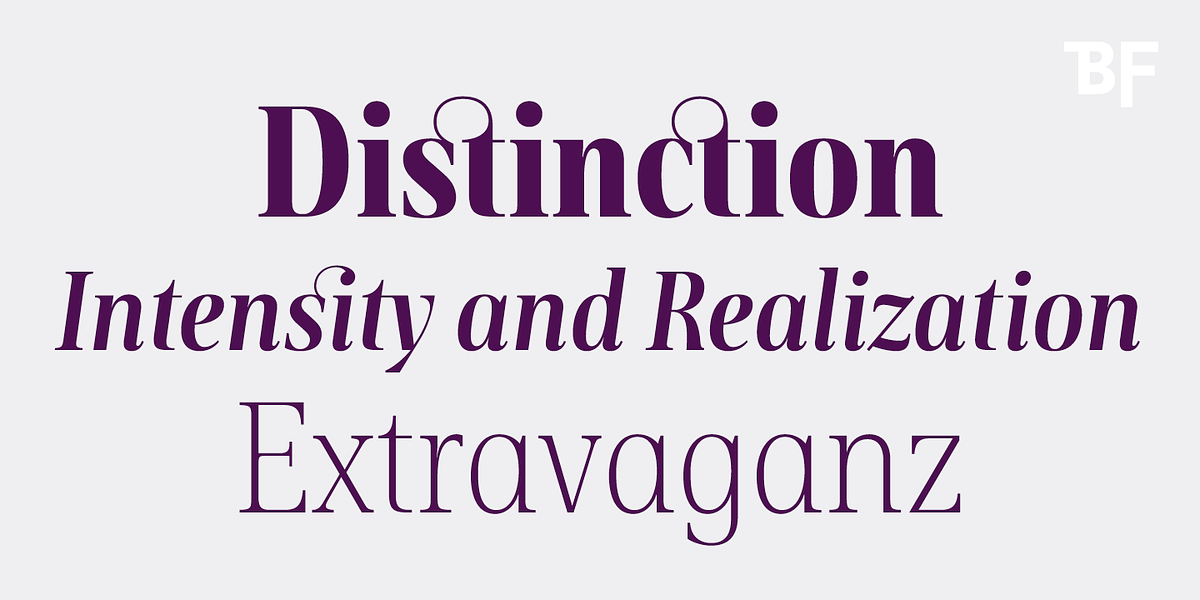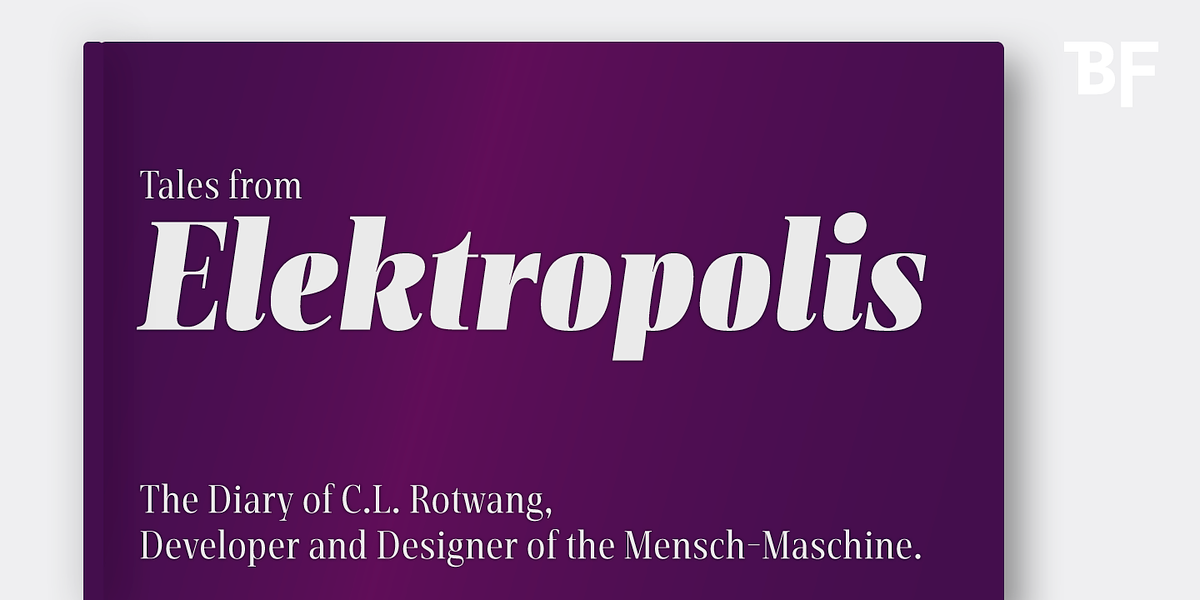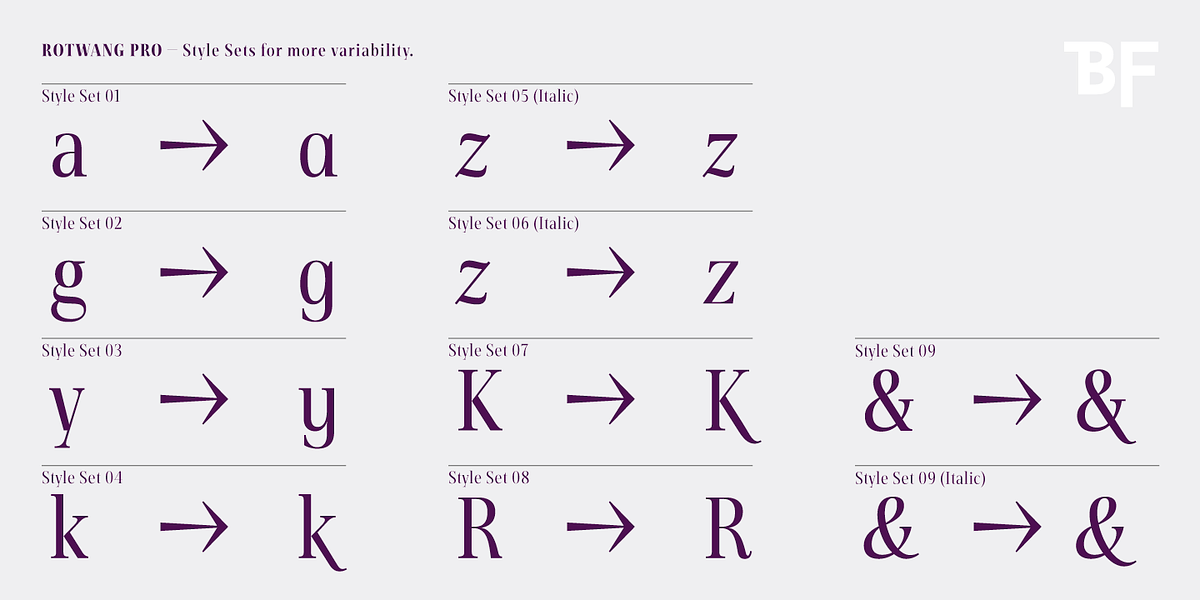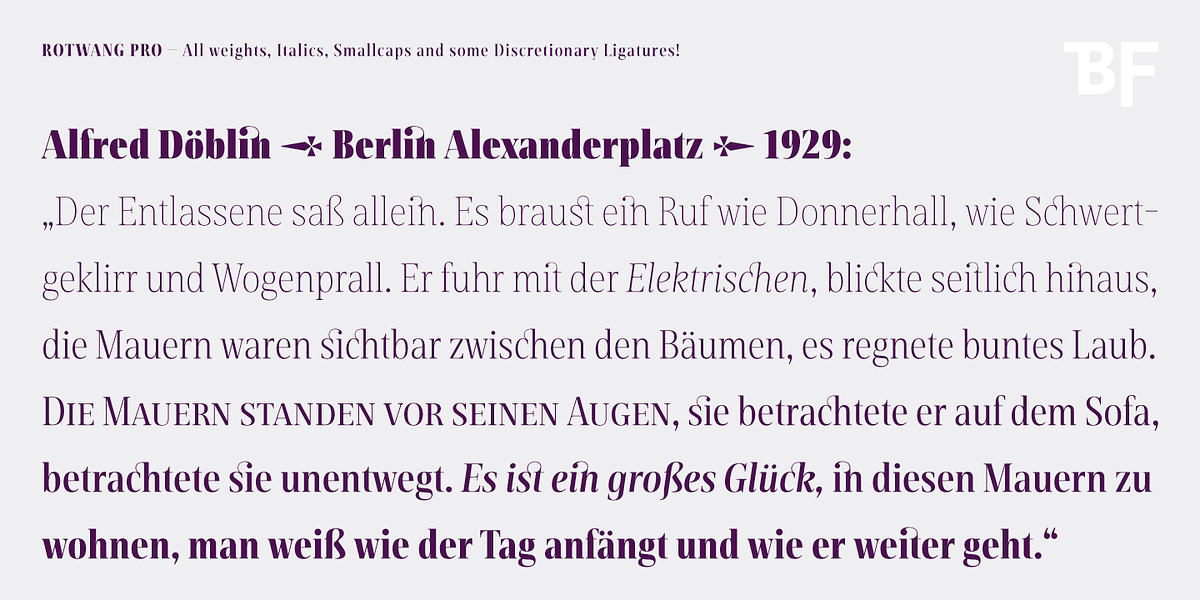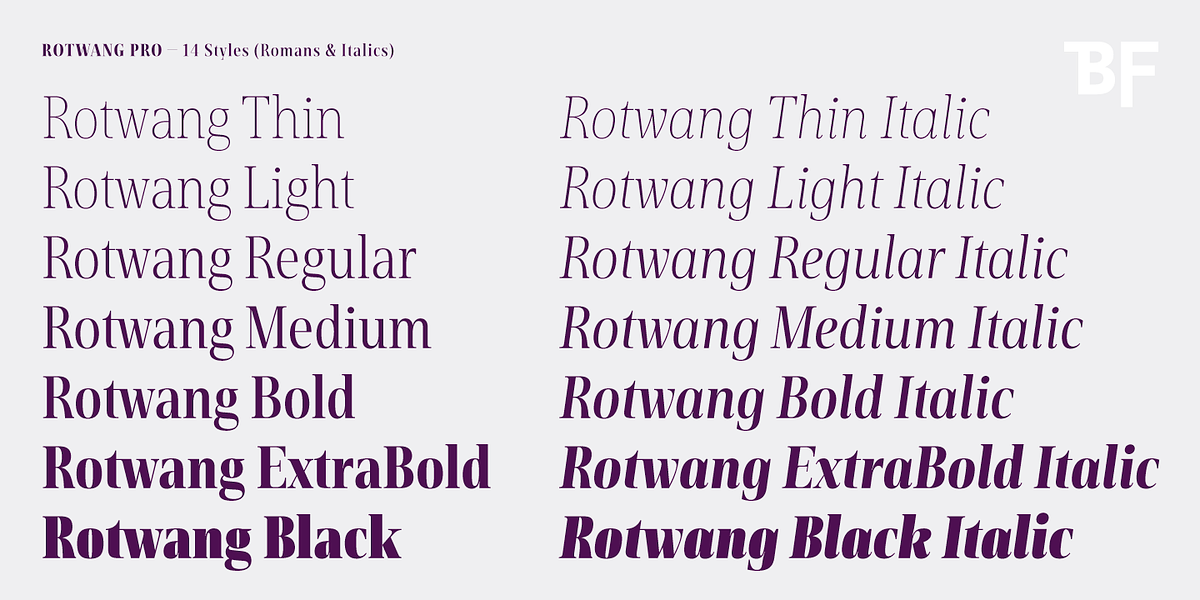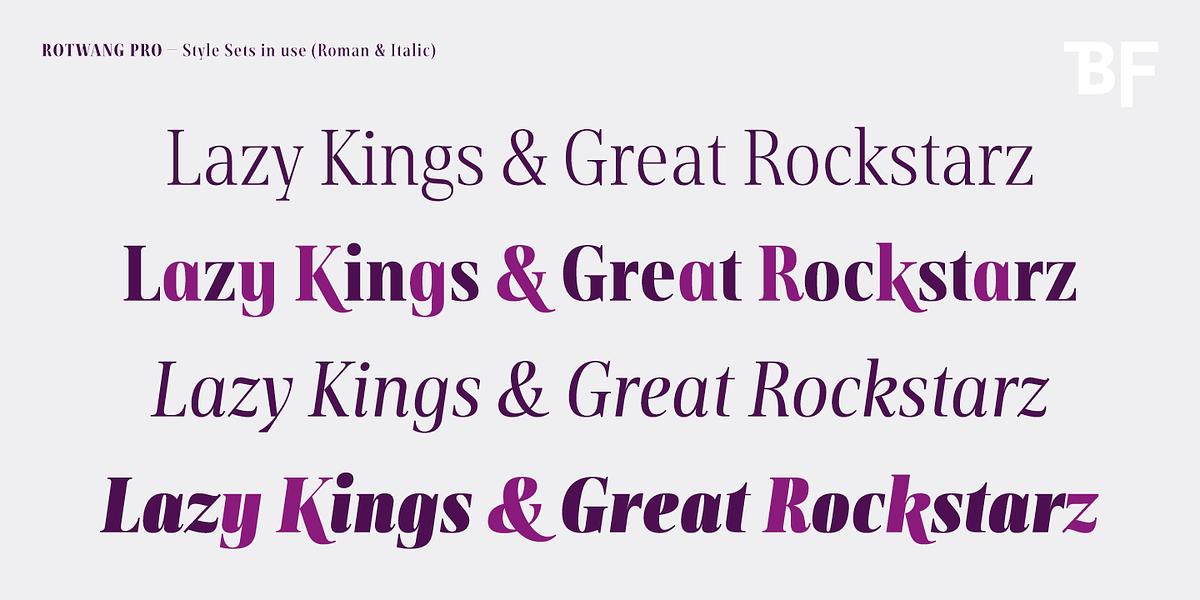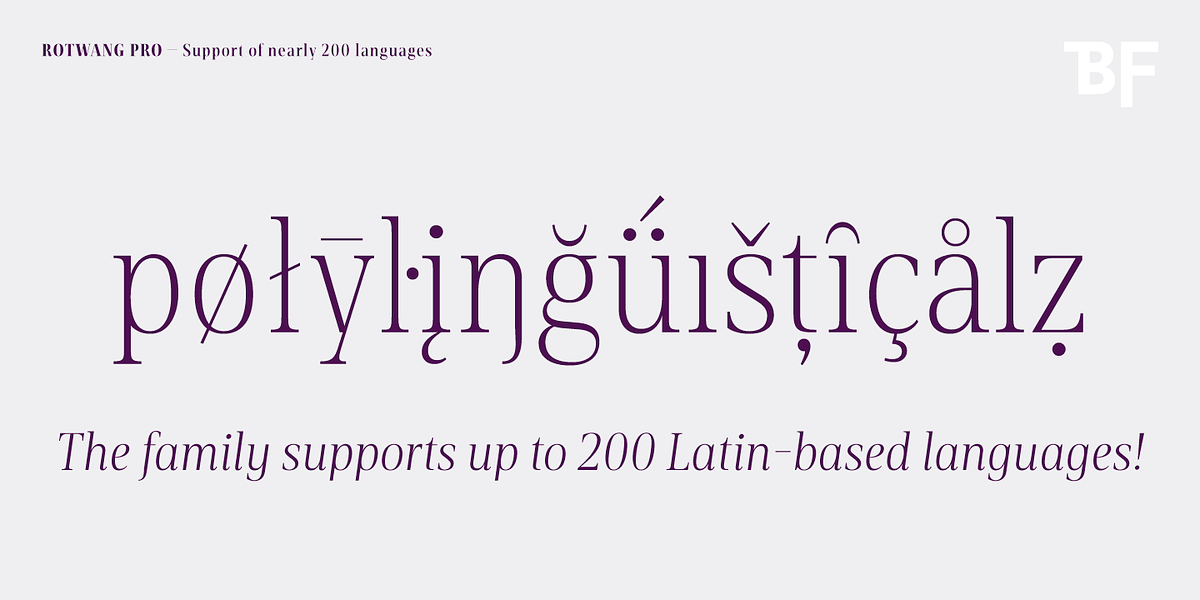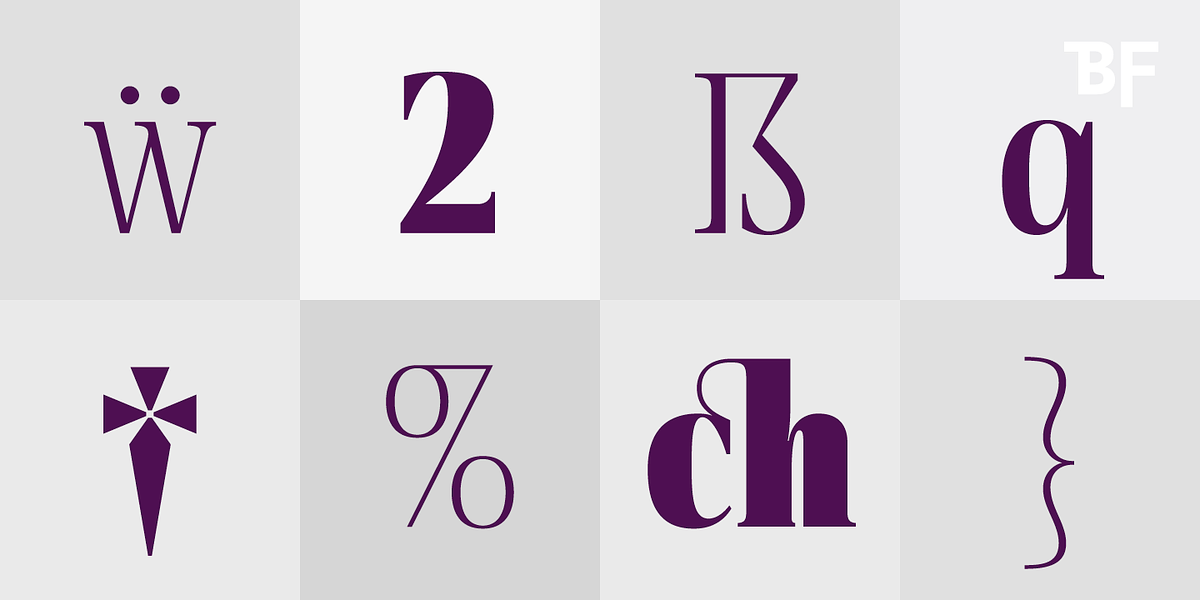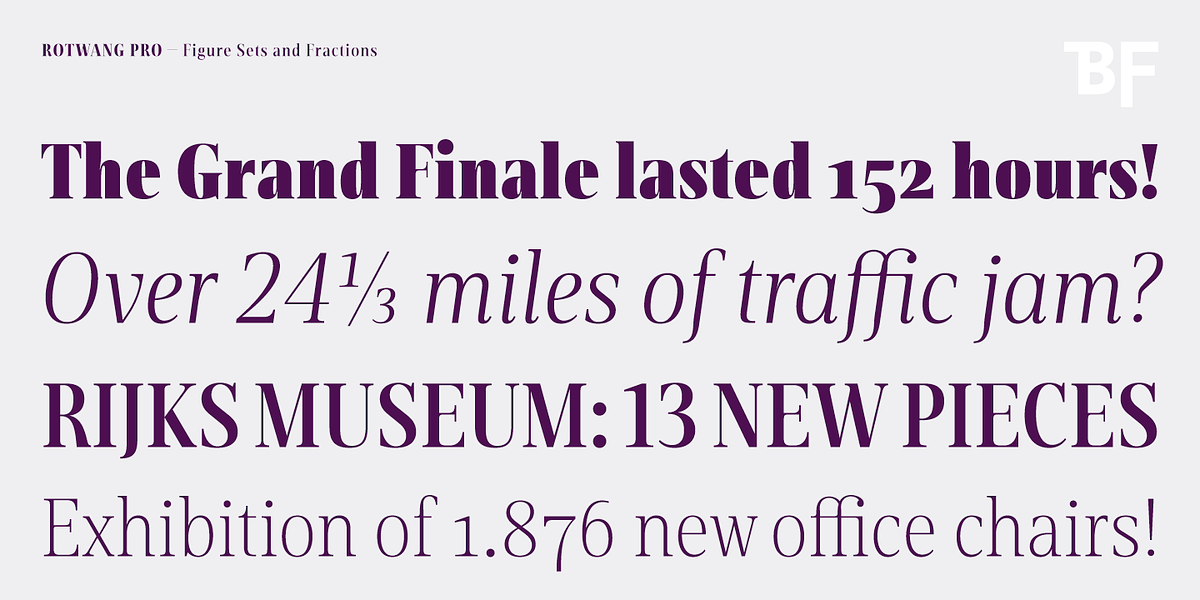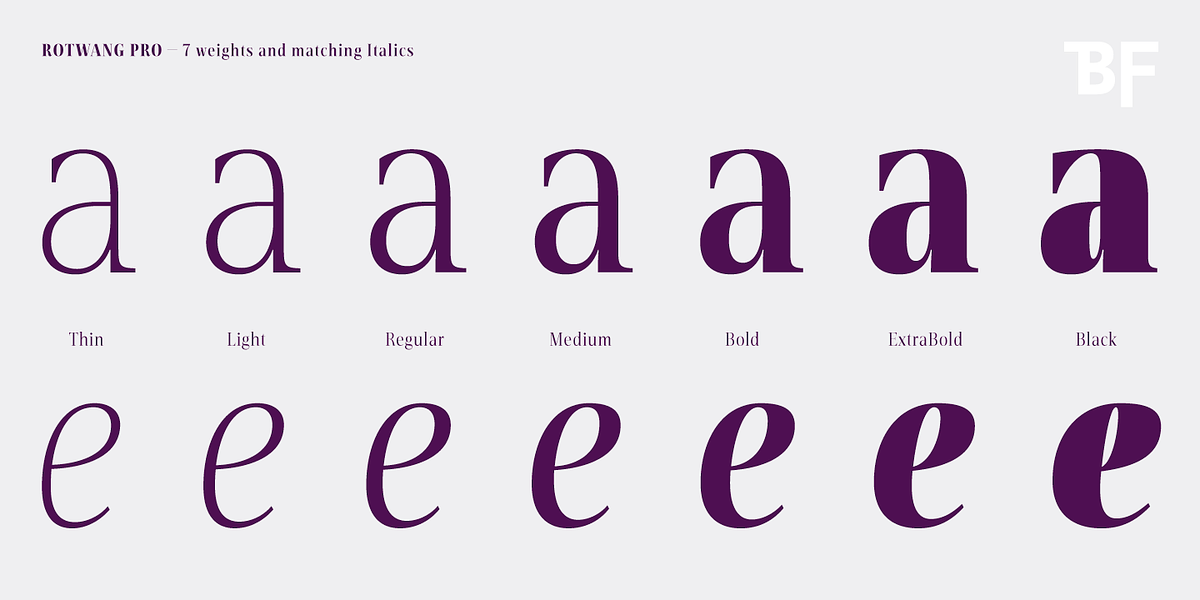
BF Rotwang Pro
BF Rotwang™ Pro is a contemporary reimagining of a classic serif typeface, drawing inspiration from the character C.L. Rotwang in the film Metropolis. It blends the elegance of high-contrast transitional serifs with Didone influences. The font family offers seven weights and matching italics, catering to both display and body text applications. Its condensed letterforms allow for space-saving layouts while maintaining a balanced and refined aesthetic.